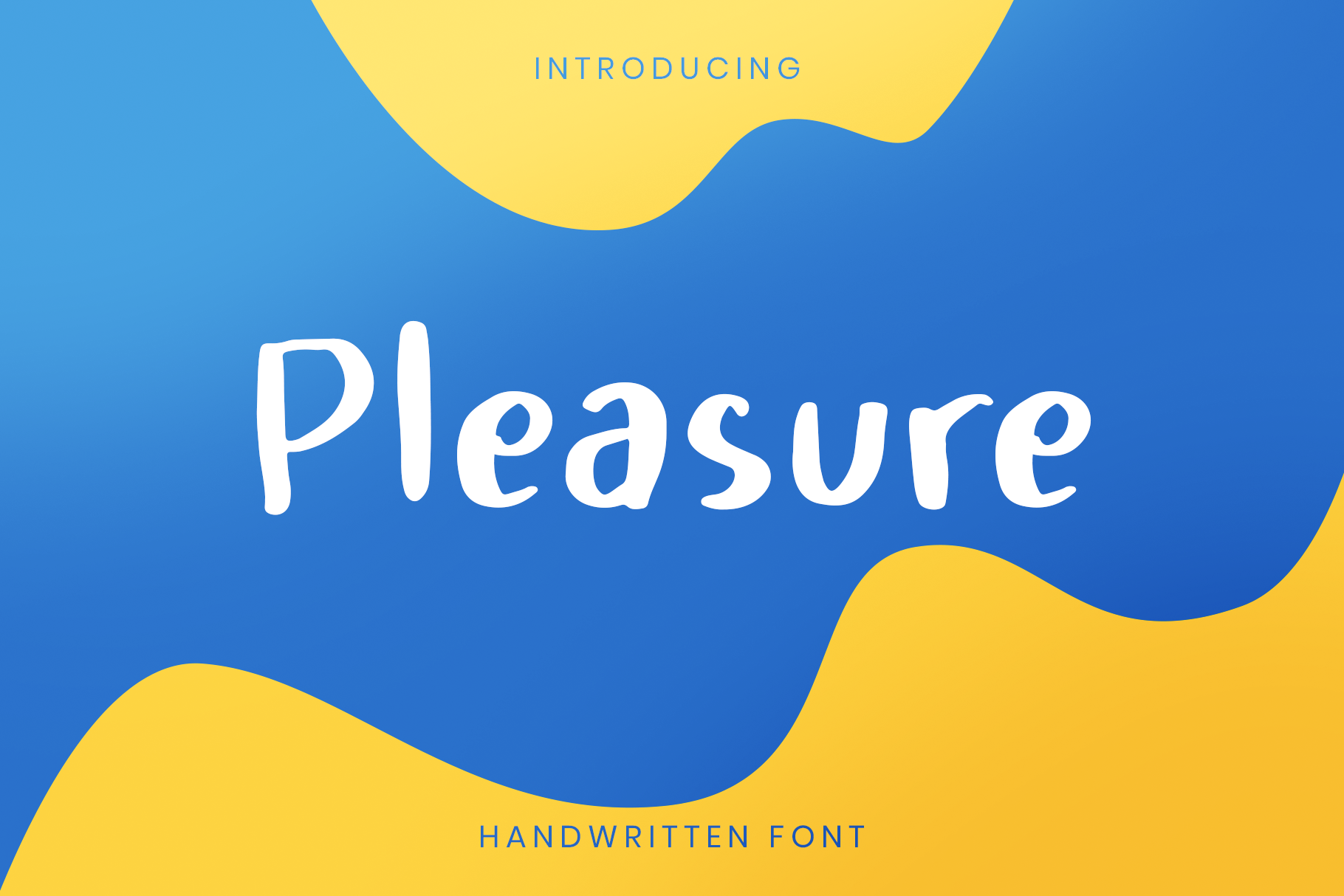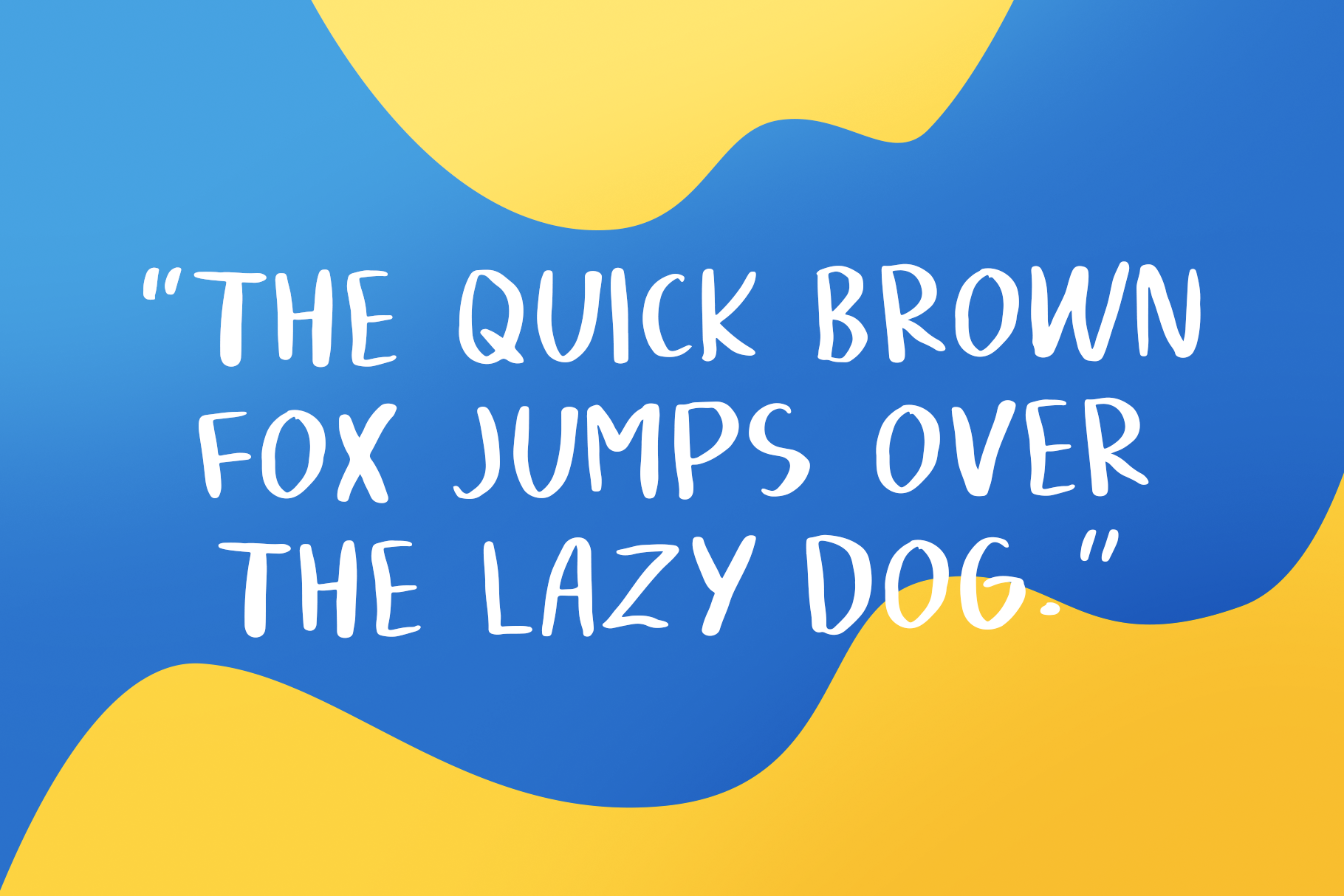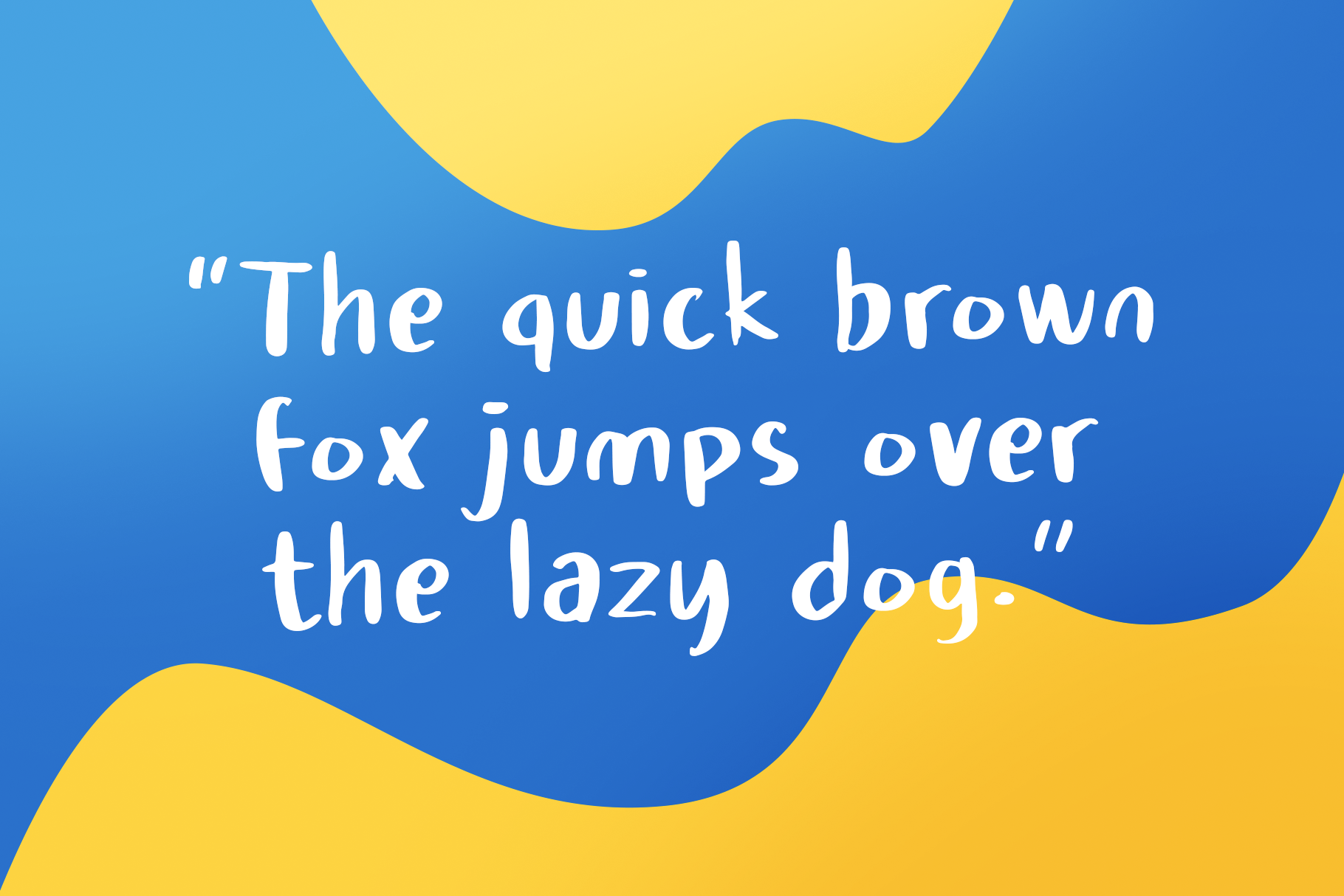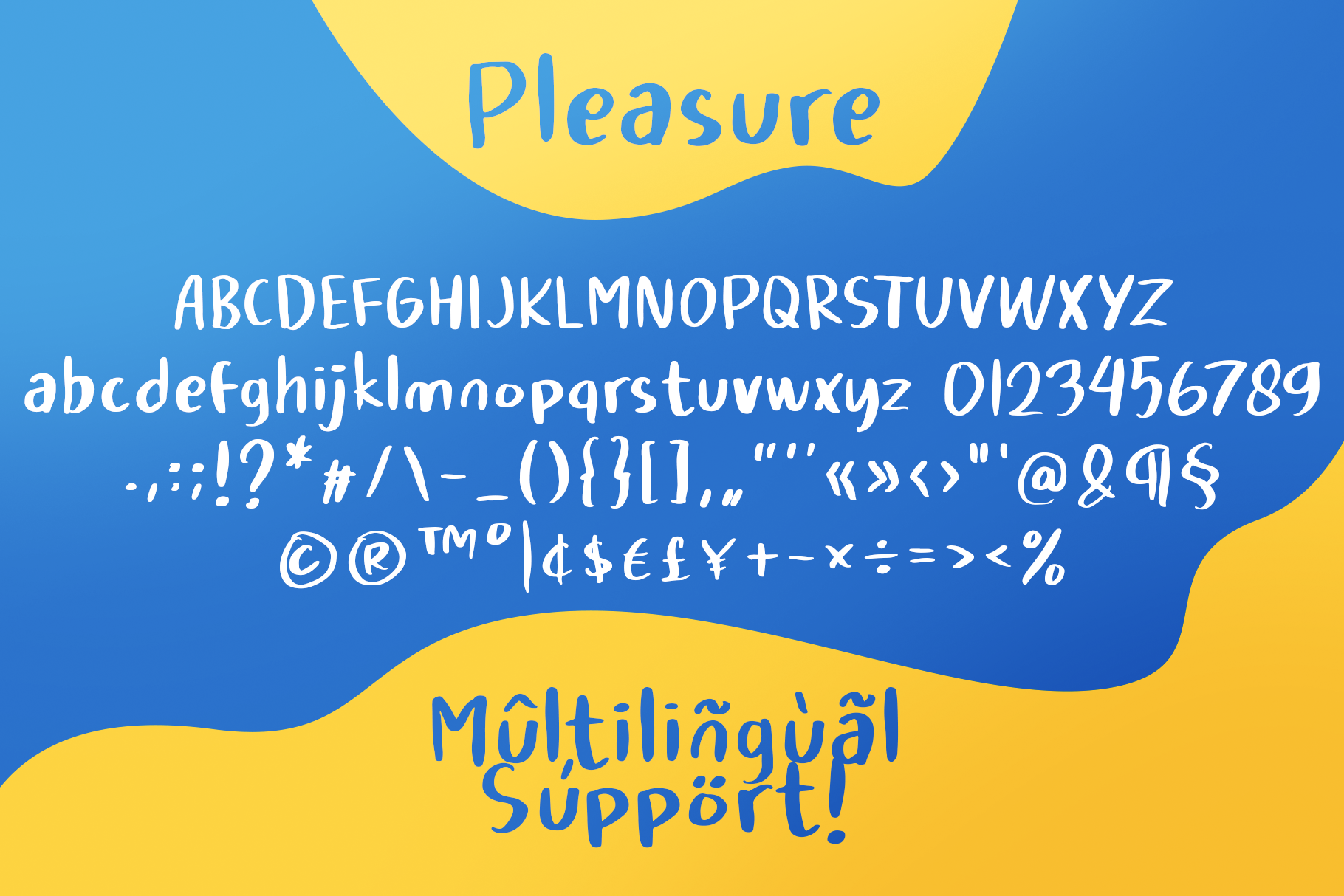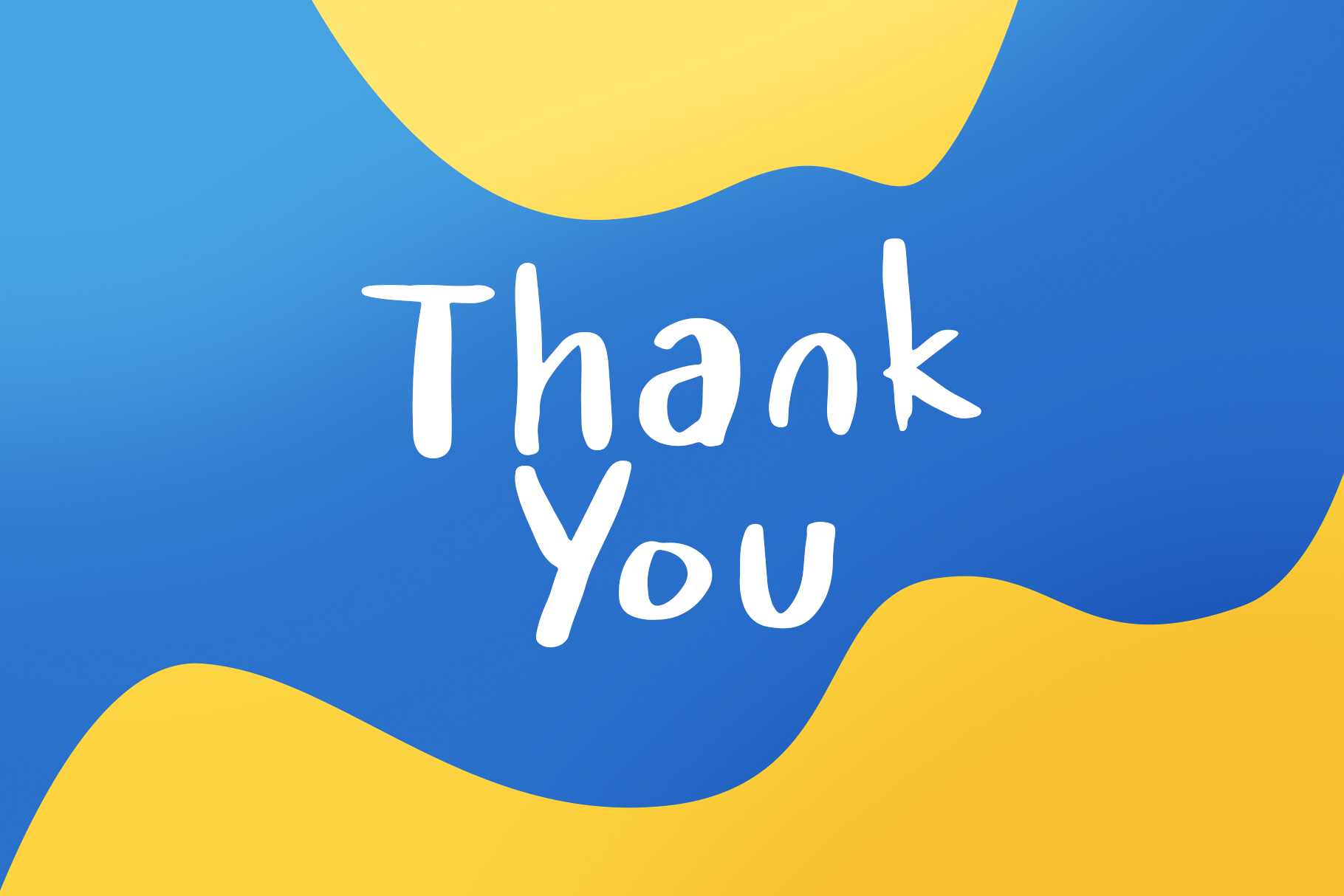
Ignite the essence of pleasure in your brand identity with Pleasure Handwritten Font, a handwriting font logo designed to infuse expressiveness into your logo designs. This font boasts unique strokes and a distinctive character, making it an excellent choice for those seeking a handwriting font to create captivating and memorable logos.
Pleasure handwriting font logo strikes the perfect balance between elegance and individuality. Each letter is crafted with precision to add a personalized touch to your brand. Whether you’re designing for a luxury brand, a creative business, or a personal project, Pleasure elevates your logo with a delightful handwriting aesthetic.
Explore the world of expressive typography with Pleasure Handwritten Font – where every stroke tells a story of creativity and pleasure.